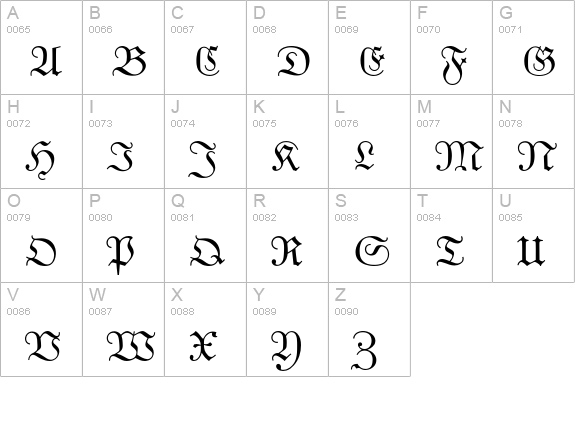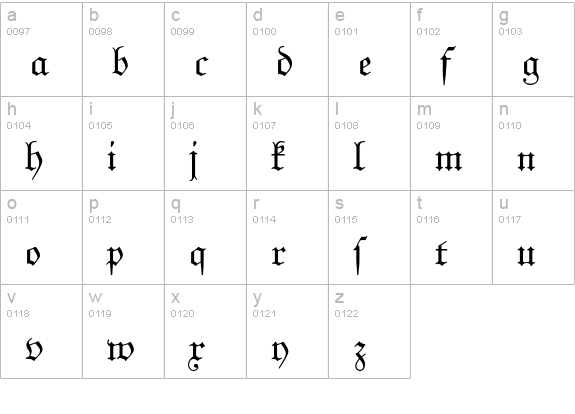
Unger-Fraktur Font Details
Unger-Fraktur font is a stunning and elegant typeface that captures the essence of traditional Fraktur calligraphy. Its intricate and ornate letterforms are beautifully crafted, adding a touch of sophistication and historical charm to any design project. This font is meticulously designed with attention to detail, making it perfect for adding a touch of old-world elegance to invitations, posters, book covers, and more. The sharp angles and bold strokes of Unger-Fraktur font create a visually striking and memorable aesthetic that is sure to captivate viewers. One of the most remarkable aspects of Unger-Fraktur font is that it is freely available to download at FontsMarket.com. This means that designers and typographers can easily access this exquisite typeface without any cost, allowing for limitless creative possibilities. Whether you are a professional designer or a beginner, Unger-Fraktur font offers a high-quality and versatile tool to enhance your typography projects. With its timeless appeal and rich historical context, Unger-Fraktur font is ideal for projects that require a touch of sophistication and a nod to the past. Its versatility allows it to be used in a variety of design contexts, from vintage-inspired designs to modern-day creations seeking to add a unique twist. Unger-Fraktur font is a true gem for anyone looking to elevate their typography game. Download it for free at FontsMarket.com and explore the endless possibilities that this exceptional typeface has to offer. Let Unger-Fraktur font bring a touch of elegance and historical charm to your next design project.